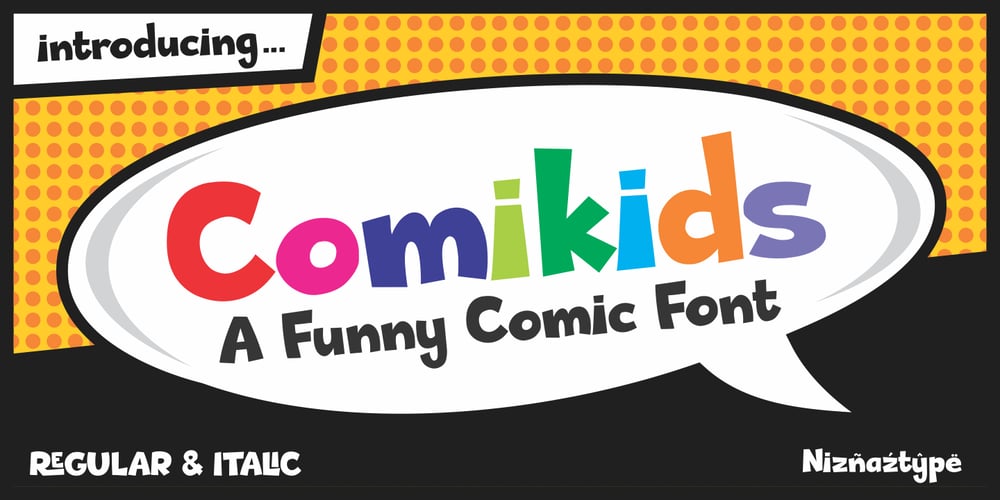
Comikids Font Family was designed by Muhammad Nazarudin and published by Niznaztype. Comikids contains 2 styles and family package options. Introducing a comic and funny typeface characters. Its name asComikids. A font that have a unique style used for complete typingin comic text, ballon text, illustration type, children themes and textfor illustration.Comikids have a avor as fun, cool and happy. This font created toperfect your designs like text in comic, fun headline, ballon text,headline in poster or kids magazine, alphabet for wallpainting, bookcover, magazine headline lettering and others design for perfectinga high style and characters in kids or fun cases. Even Comikidscomfortable for themes such as kids, children, cartoon, funny etc.Comikids consist of :- Uppercase- Lowercase- Numeral, punctuation and symbol- Multilingual LanguageComikids save in two styles : regular and italicPlease, enjoy it with Comikids. A funny comic and illustrationlettering. Simple, funny and cute.Thanks a lot.